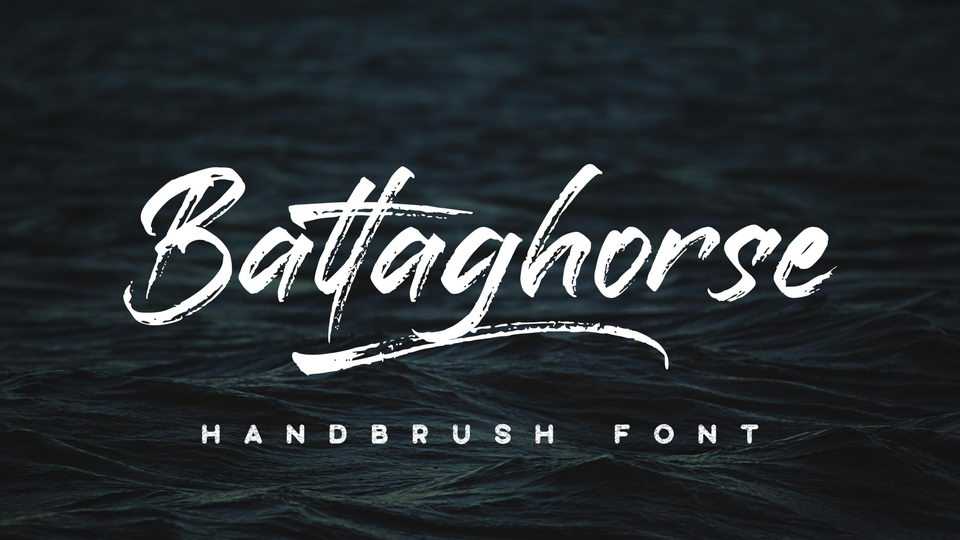
Download Battaghorse font, a fast writing brush script with textures and swashes. Battaghorse will make your design or project look perfect with authentic characteristics.
Designer: Ghuroba Studio